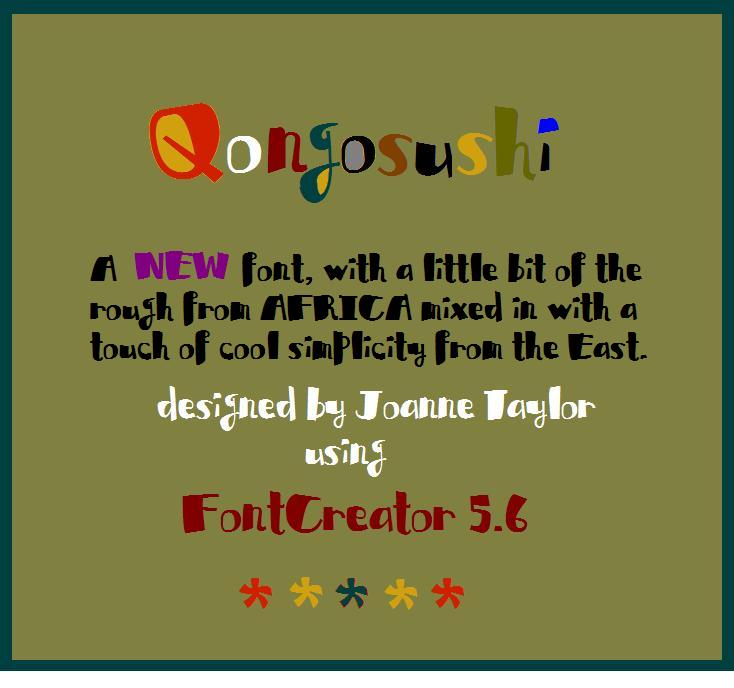
Qongosushi and Qyrillic are my first two fonts with FontCreator. Their jpg images are posted in the images section.
I wanted a hand-drawn rather than hand-written look for them, irregular and spontaneous as far as possible, so tell me what you think.
Qongosushi has a kind of raw but chunky feel and might look goor on Menu or Magazine heading pages, whereas Qyrillic would be for Chapter Headings in children’s or fantasy stories.
Living here in South Africa, there is a lot of quite unusual inspiration, and i have many more ideas in process.